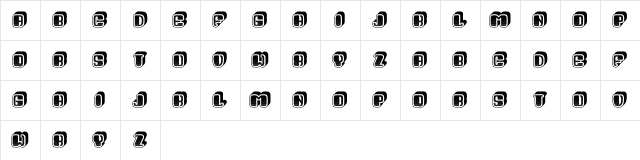
Video Gradient Regular
Design Context for Video Gradient
Video Gradient is a composed and adaptable typeface that performs quietly and consistently across a wide range of design contexts.